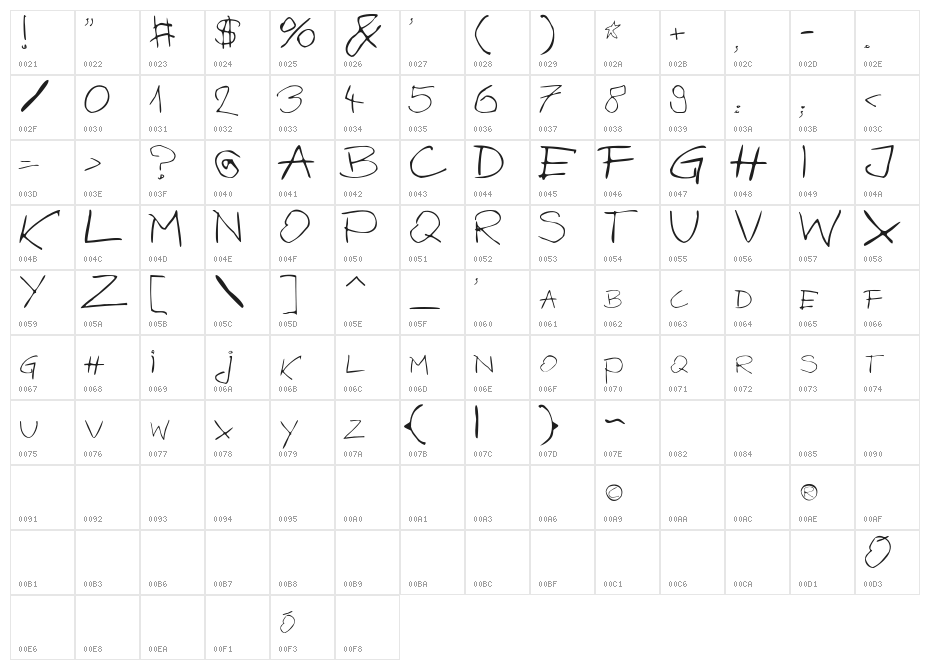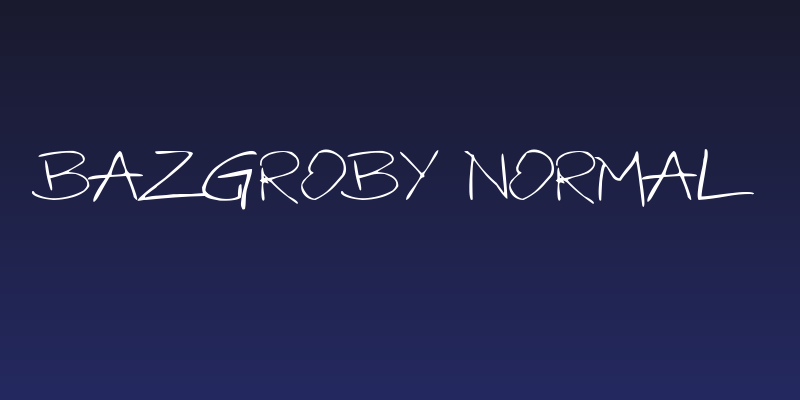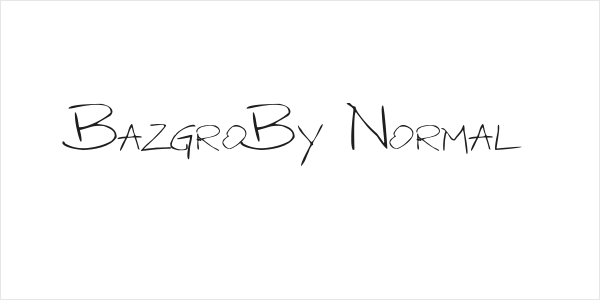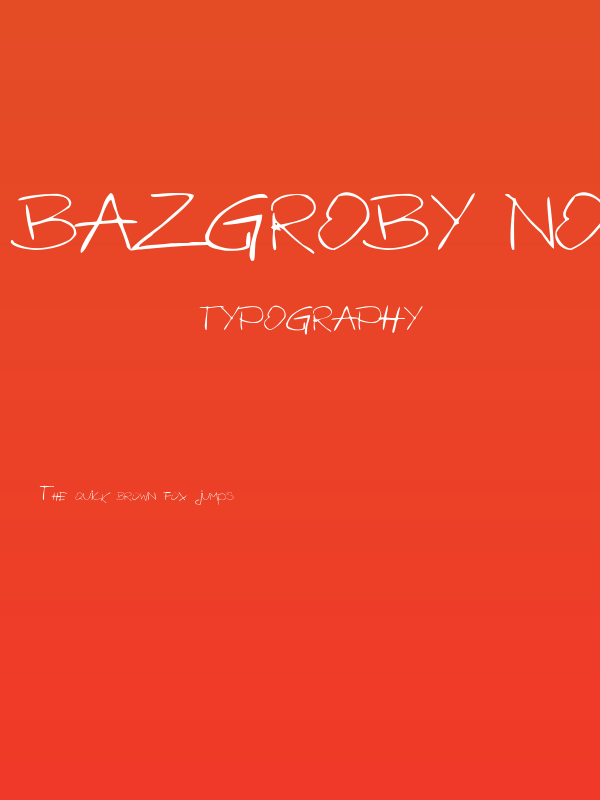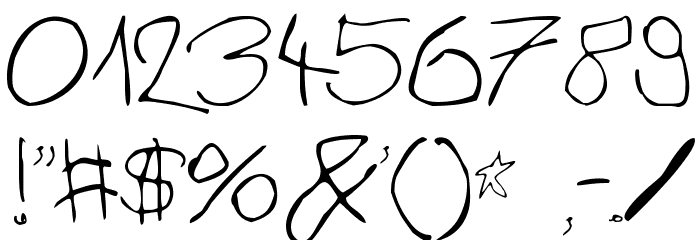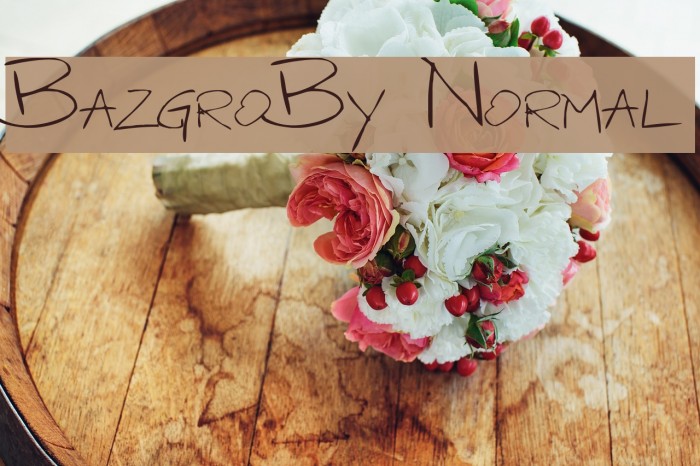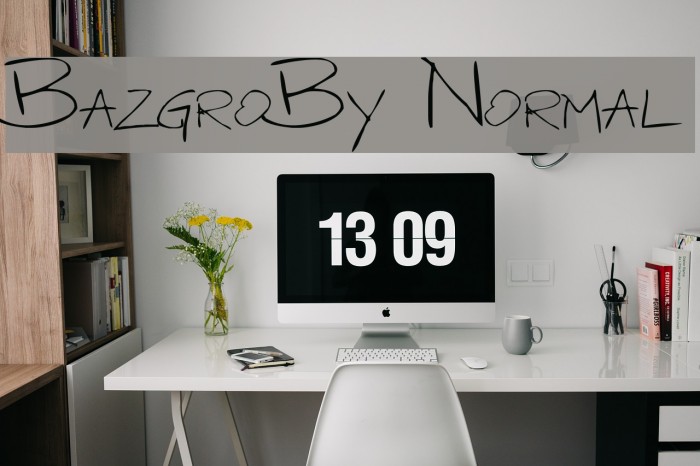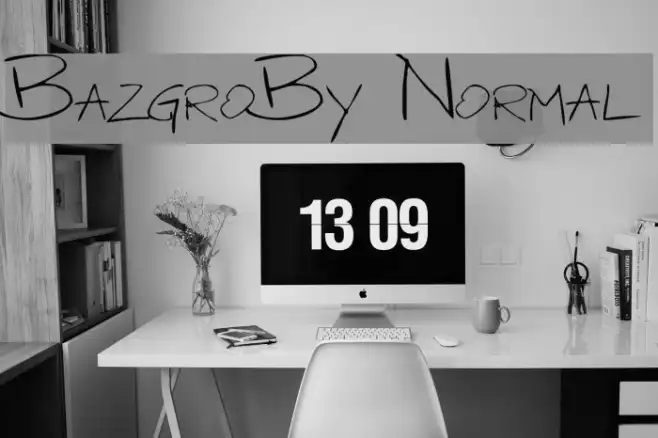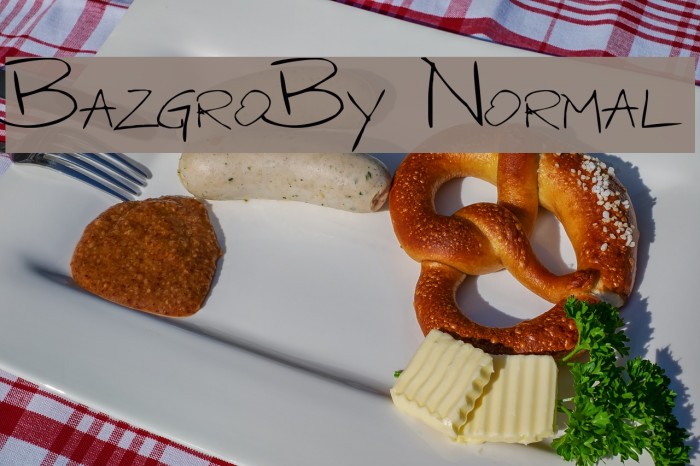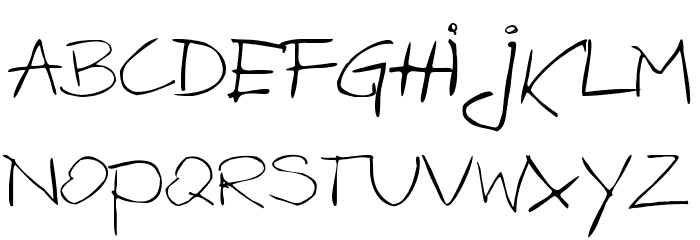
BazgroBy Normal Font
BazgroBy Normal Description
This font exudes a playful and casual vibe with its handwritten style. The letters are irregular and slightly tilted, giving it a dynamic and spontaneous appearance. The strokes are uneven, with varying thickness that adds to its informal charm. The characters are loosely spaced, enhancing its relaxed feel. This font includes a full set of uppercase and lowercase letters, numbers, and a variety of special characters, making it versatile for creative projects. Its unique style is perfect for adding a personal touch to any design.